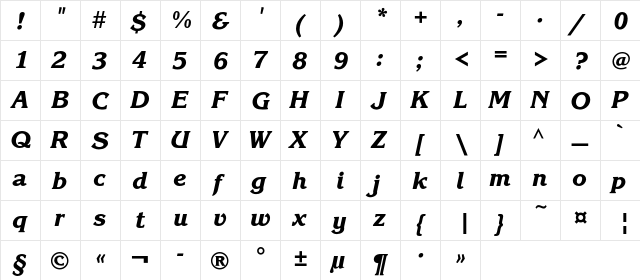
KorinnaBlackC Italic Font Preview
KorinnaBlackC Italic
Design Context for KorinnaBlackC Typeface
KorinnaBlackC takes a measured approach to typography — its balanced proportions and neutral character make it a reliable workhorse for both digital and print work. The dynamic lean of this cut emphasises speed and emphasis in any layout.
Pro Tip: Use KorinnaBlackC for emphasis, pull quotes, and subheadings where its slanted energy can add rhythm to the layout.